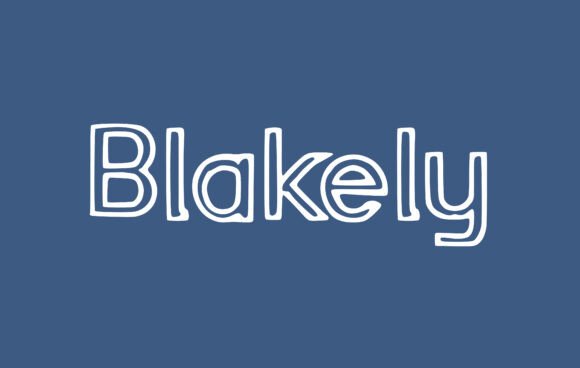
The Blakely Font: A Friendly and Modern Sans-Serif for Creative Projects
I’ll never forget the time I was working on a project for a children’s educational app. I had all the graphics and illustrations ready, but I was struggling to find the perfect font. The design needed to be fun, youthful, and easy to read. That’s when I stumbled upon the Blakely font. Its soft, outlined sans-serif design immediately caught my attention, and I knew I had found the perfect fit.
An Honest Review of Blakely Font
• ✨ Friendly and modern look that appeals to a young audience
• ✅ Clean, rounded forms that make it easy to read
• ✅ Subtle line work that adds a touch of whimsy to any design
• ✅ Perfect for educational tools, classroom decor, kids’ apparel, and branding that needs clarity with a cute twist
While Blakely is an excellent font, there are a few things to keep in mind:
• ⚠️ The outlined design may not be suitable for very small font sizes or low-resolution images
• 🤔 Some of the glyphs and stylistic alternates may require a bit of experimentation to get the desired look
The Story Behind Blakely Font
Blakely was designed with the goal of creating a friendly and modern sans-serif font that would appeal to a young audience. The designer wanted to create a font that was both clean and playful, with a subtle line work that would add a touch of whimsy to any design. The result is a font that’s perfect for educational tools, classroom decor, kids’ apparel, and branding that needs clarity with a cute twist.
Q: What is the Blakely font?
A: Blakely is a soft, outlined sans-serif font with a friendly and modern look.
Q: What is Blakely font used for?
A: Blakely is perfect for educational tools, classroom decor, kids’ apparel, and branding that needs clarity with a cute twist.